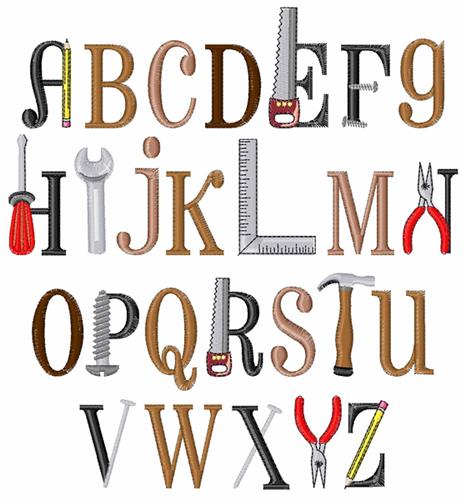
Embroidery Patterns is happy to present Carpenter Font machine embroidery font which has This playful decorative machine embroidery font showcases the phrase 'CARPENTER FONT' using various tools as letters, making it perfect for crafting on aprons, tool belts, or other sewing projects. Available in PES, DST & 11 other formats. included. If you would like to view more embroidery fonts and alphabets please search our embroidery fonts page.